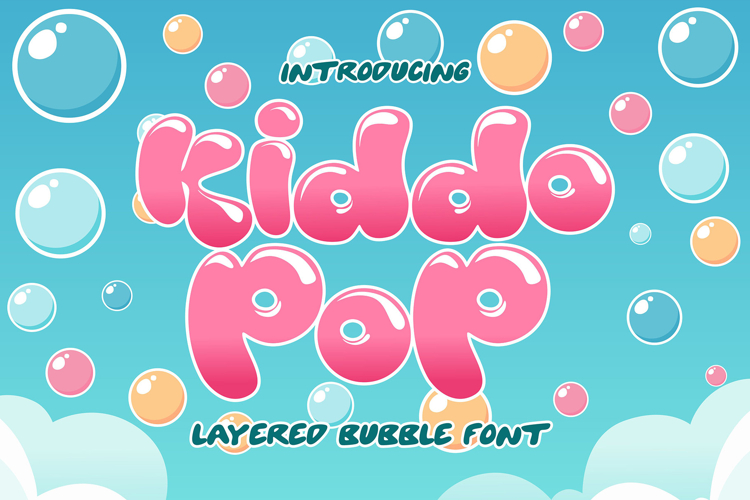
Kiddo Pop - Layered Bubble Display Font
Meet Kiddo Pop – Layered Bubble Display Font, a fun and cheerful typeface designed to bring joy to every creative project. With its rounded bubble style and layered glossy effect, this font makes any design feel playful, friendly, and eye-catching. Whether you’re creating children’s book covers, birthday invitations, school posters, cartoon titles, or fun branding, Kiddo Pop adds a delightful touch.
What makes Kiddo Pop truly special is its versatility. It comes with both Uppercase & Lowercase letters, giving you freedom in typography layouts. Along with the base style, you’ll also get a Glossy Effect version that adds depth and shine, making your text look lively and vibrant. It’s the perfect choice for designers looking to create something that feels youthful and full of energy.
- Uppercase & Lowercase – flexibility for both titles and body text.
- Support Multilingual – covers multiple languages for international projects.
- Layered Bubble Style – unique 3D-like depth with optional glossy effect.
- Playful Design – perfect for kids-themed projects, cartoons, and fun branding.
- Bold & Readable – clear shapes that remain legible even in busy layouts.
Why Designers Love It Designers love Kiddo Pop because it captures the spirit of fun while maintaining professional usability. Its bubbly shapes are playful enough for children’s themes but still structured enough to be used in logos, banners, and packaging. The Glossy Effect version is especially popular because it instantly adds dimension and shine without needing extra graphic work.
If you’re looking for a layered bubble display font that brings fun, joy, and versatility to your projects, Kiddo Pop is the perfect choice. From children’s parties to playful branding, it’s designed to spark smiles and make every design unforgettable. Add it to your font library today and let your creativity shine with bubbly energy!